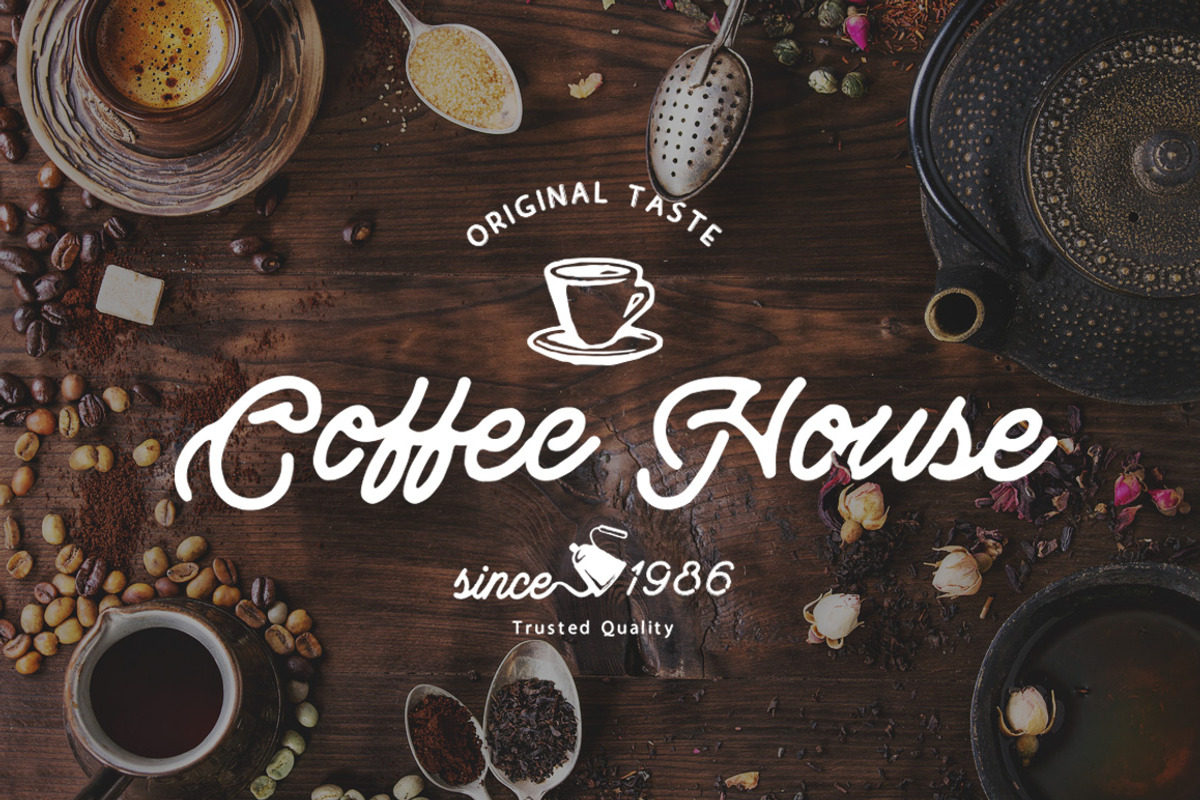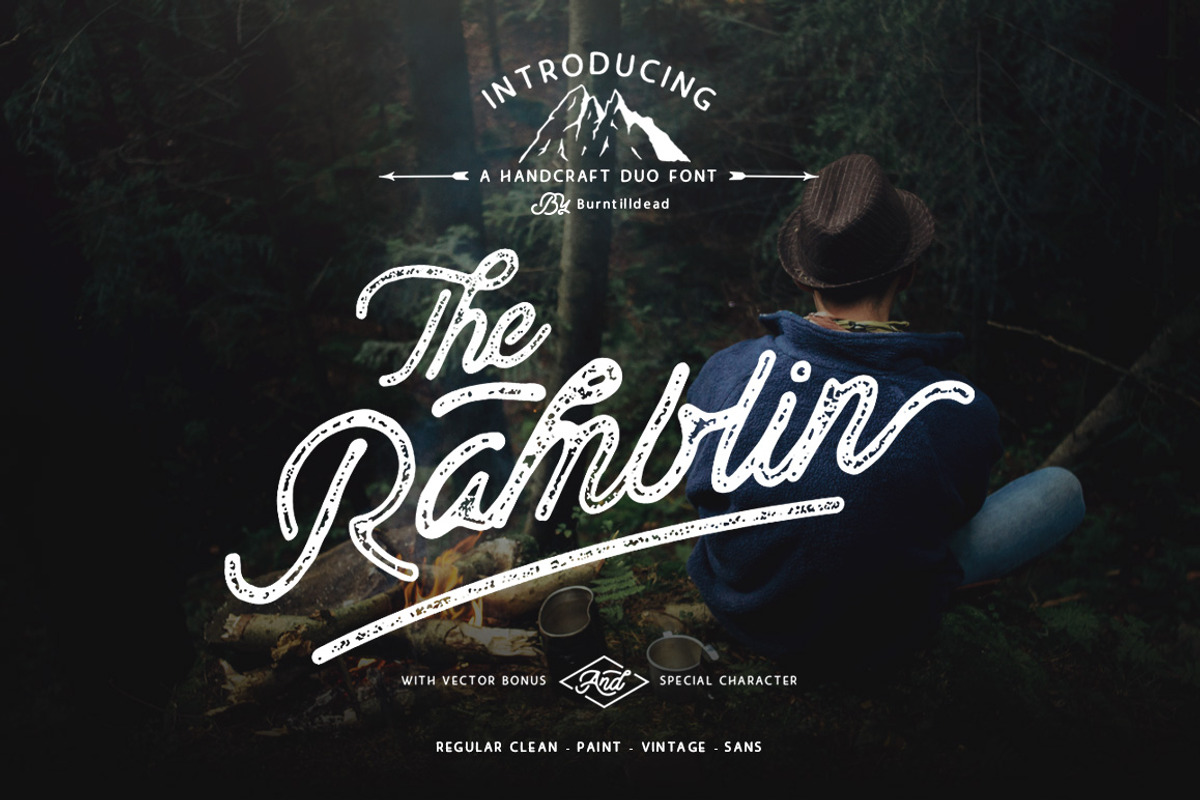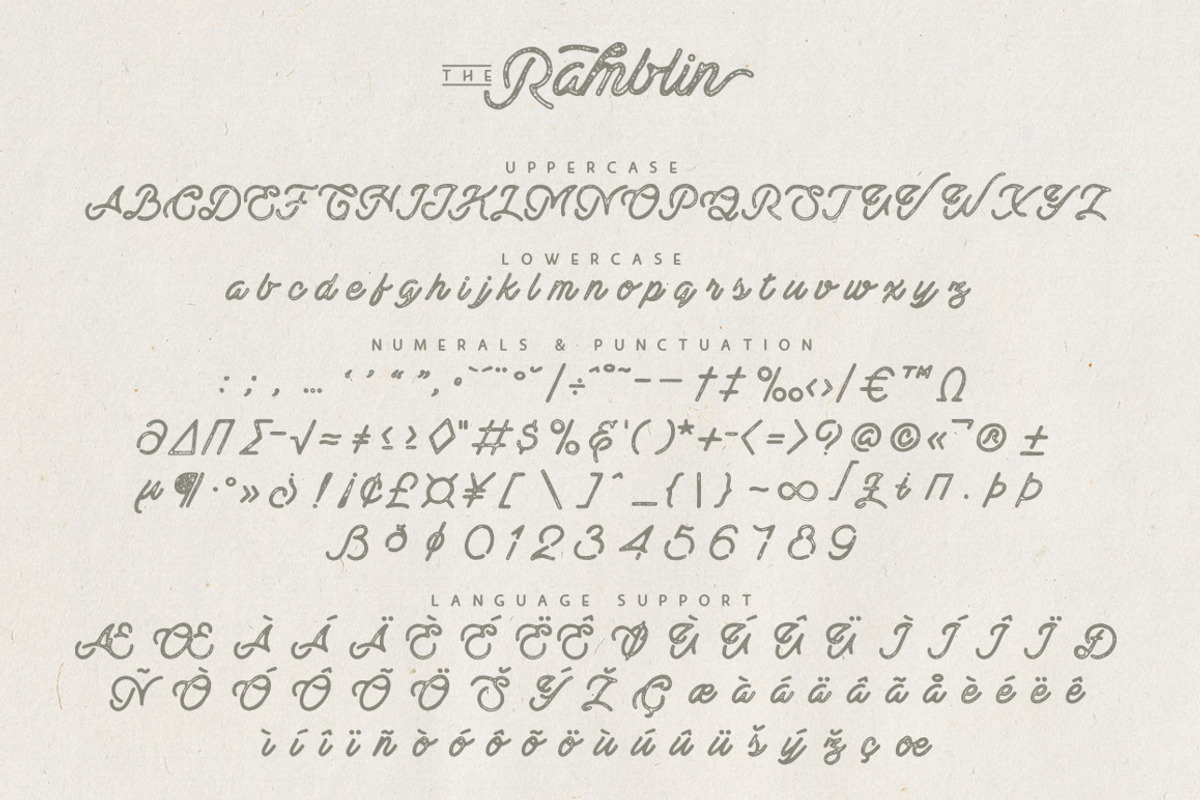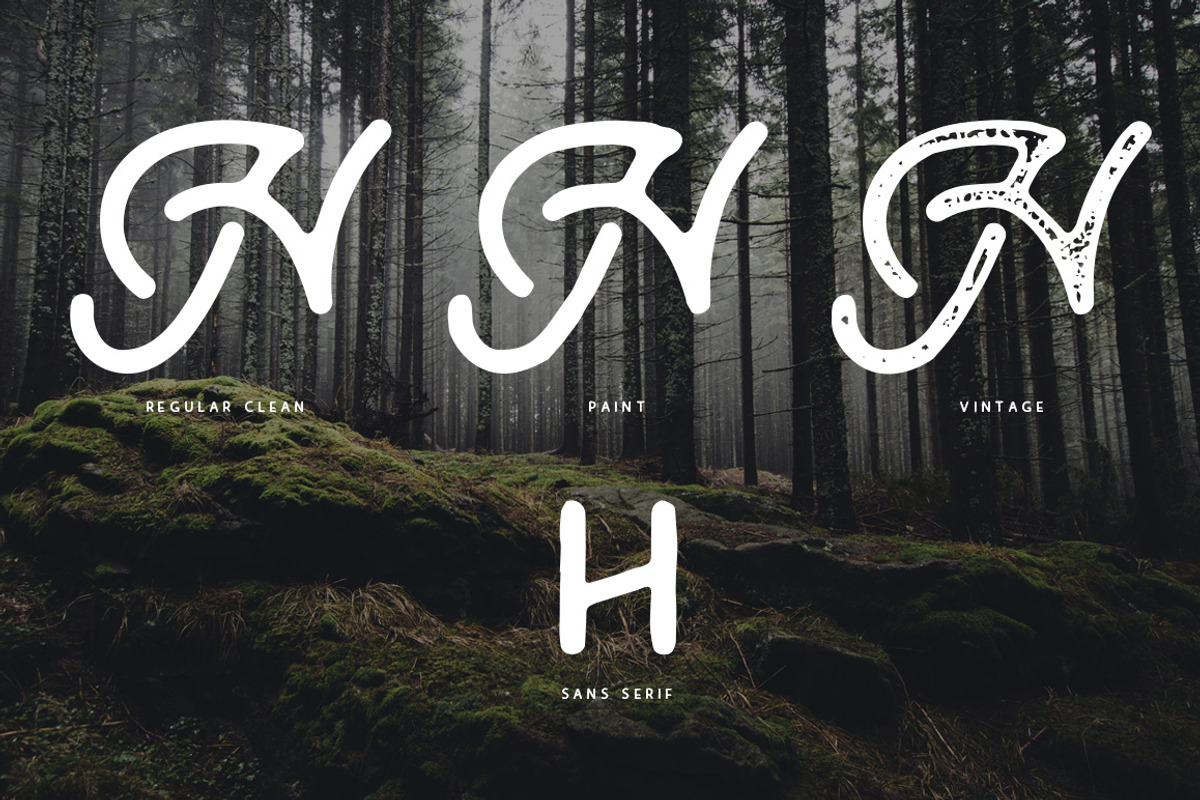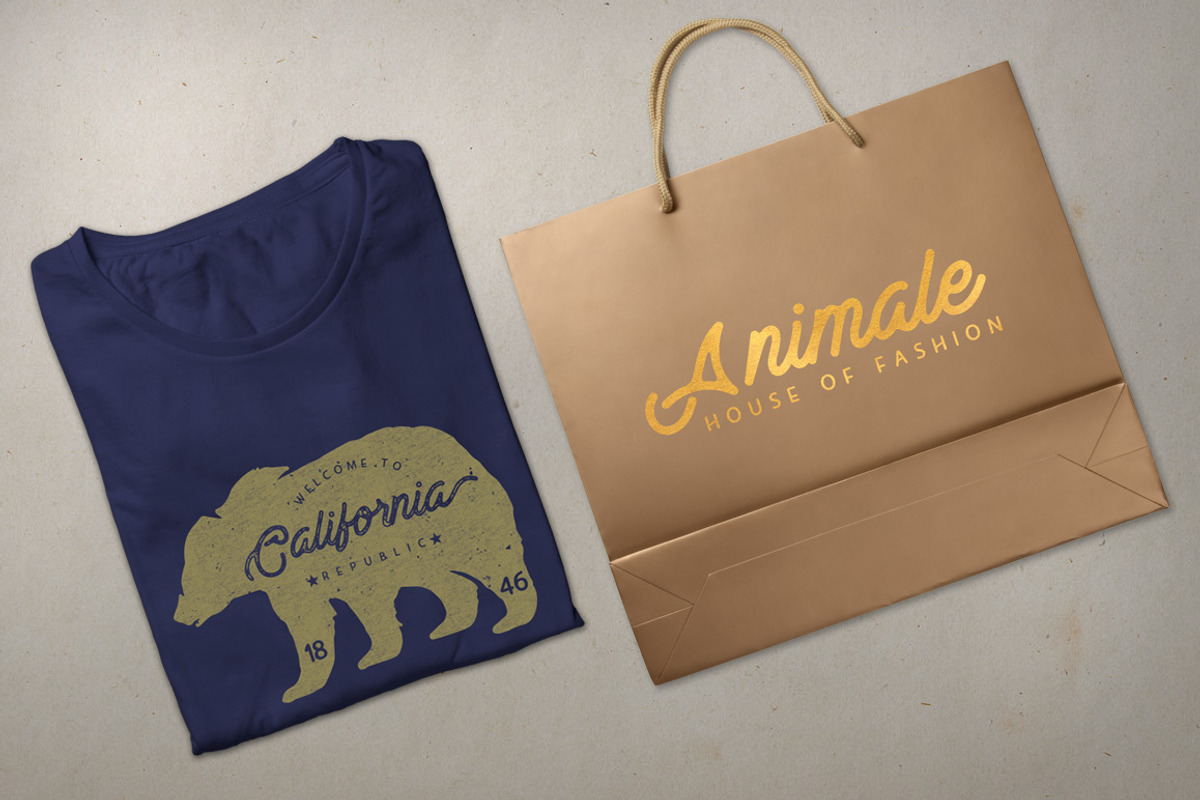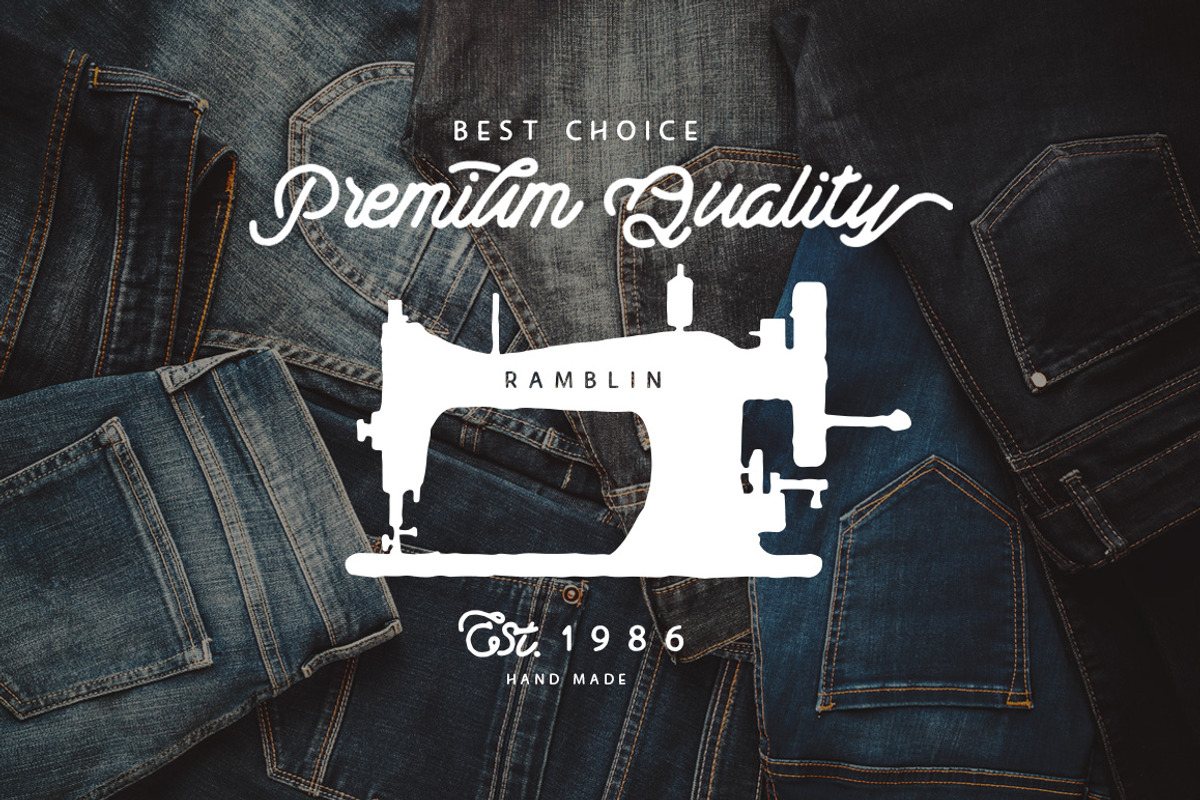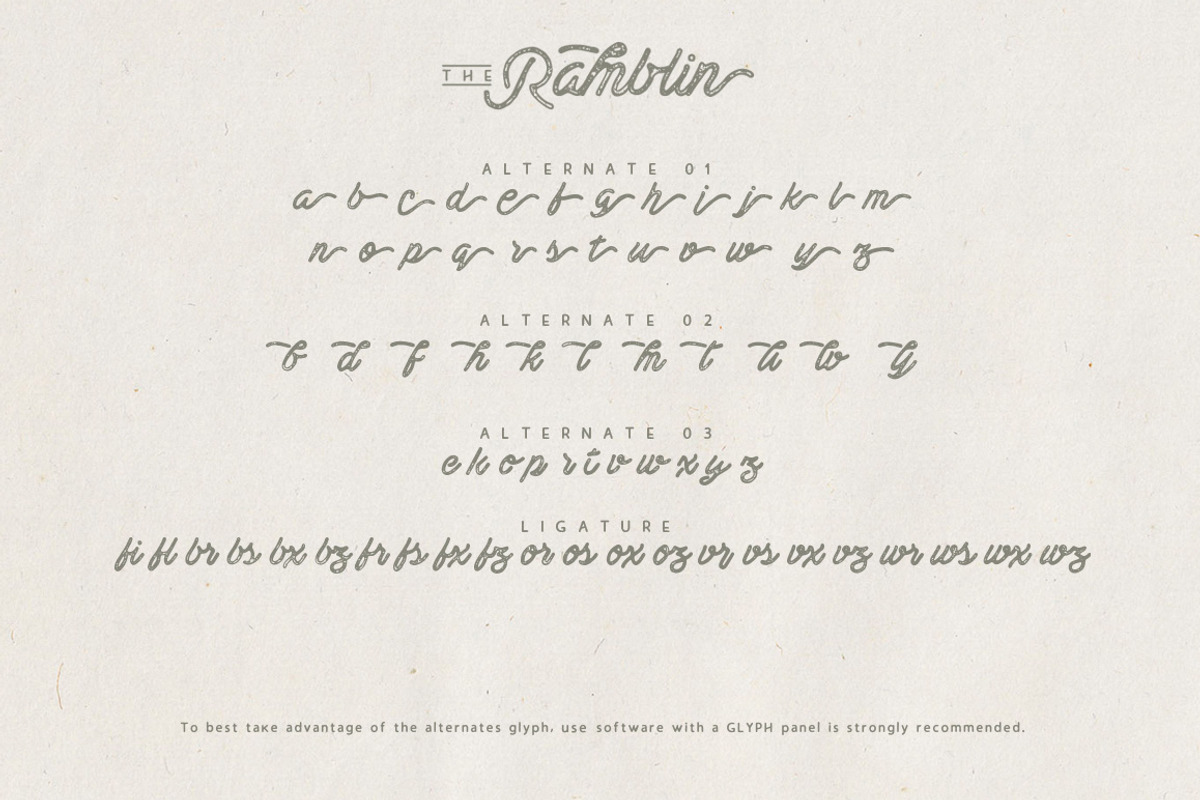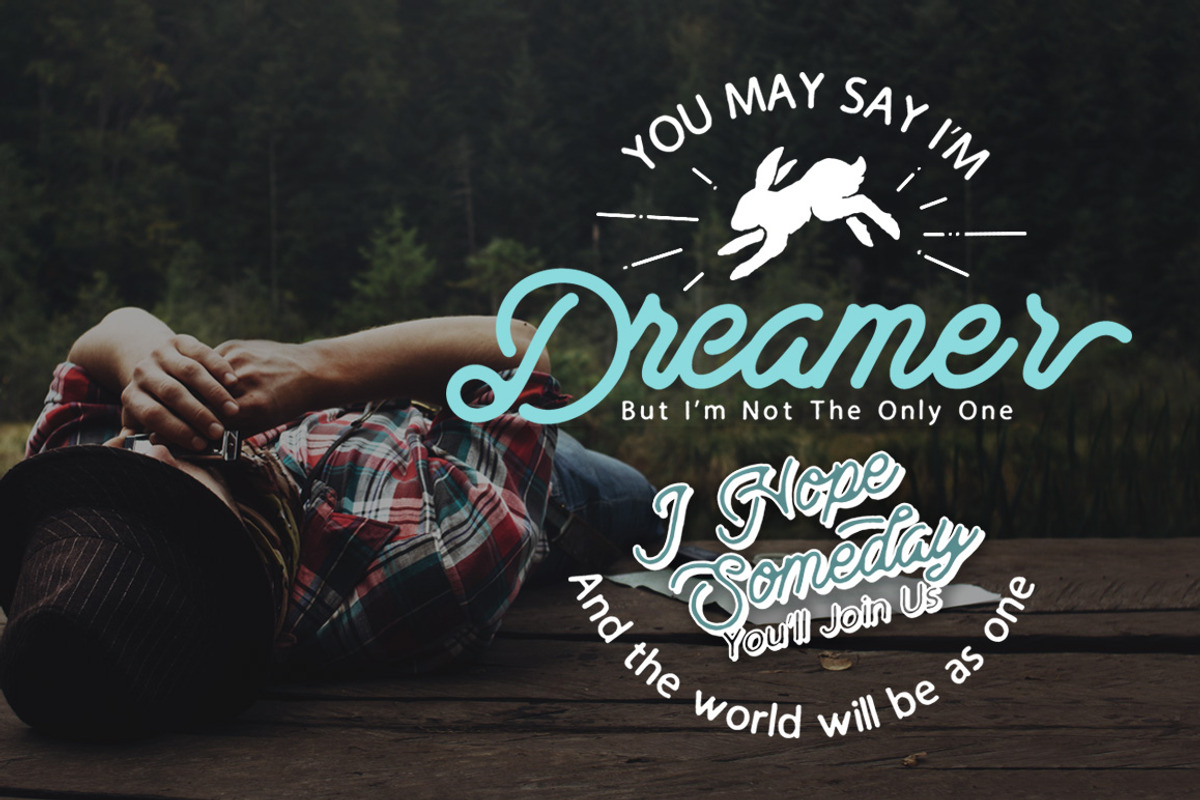
Ramblin Font Duo (15% OFF)
Ramblin Font Duo (15% OFF) by Burntilldead is a font selected for branding, posters, packaging, typography.
- Ramblin Script inspired from ink & tints manual handdrawn brush to make a natural messy, with alternate glyphs and ligature of type could he
- Ramblin Script Features: Uppercase Character Lowercase Character Stylistic Character Alternatives Character Ligatures Punctuation & Symbol S
Ramblin Font Duo (15% OFF) by Burntilldead fits naturally into Branding, posters, packaging, typography.